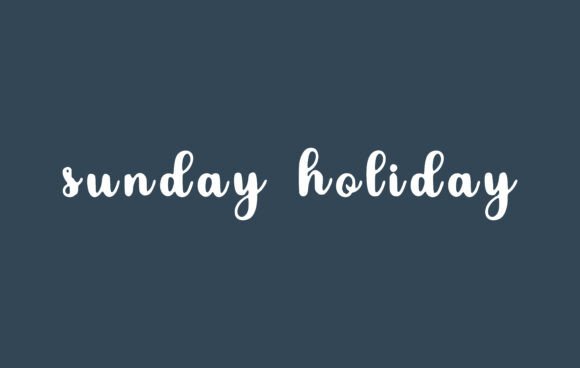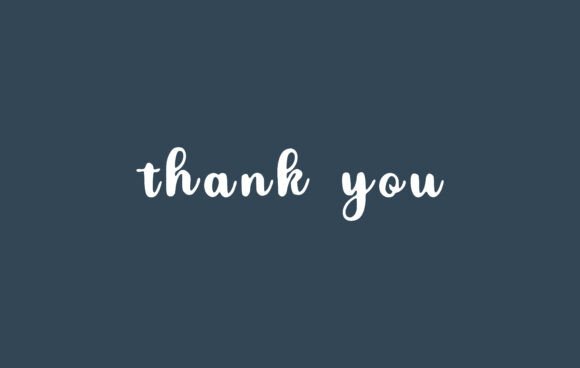
Crafty Cuties Font: The Perfect Addition to Your Design Arsenal
Are you tired of using the same old fonts in your designs? Do you want to add a touch of romance and whimsy to your creations? Look no further than Crafty Cuties font, an authentic handwritten font that is sure to become a true favorite in your design arsenal.
What is Crafty Cuties Font?
Crafty Cuties font is a beautifully designed handwritten font that exudes a romantic touch. With its unique and elegant style, this font is perfect for designers and crafters who want to add a personal touch to their creations. Whether you’re working on a magazine headline, social media post, branding project, wedding invitation, or card, Crafty Cuties font is the perfect choice.
Key Features of Crafty Cuties Font
- Authentic Handwritten Style: Crafty Cuties font is designed to look like it was written by hand, giving it a personal and unique touch.
- Romantic Touch: This font has a romantic and whimsical feel to it, making it perfect for designs that require a touch of elegance.
- Legible and Versatile: Crafty Cuties font is not only beautiful, but also highly legible, making it perfect for use as both title and body text.
Uses for Crafty Cuties Font
Crafty Cuties font is incredibly versatile and can be used in a wide range of design projects, including:
- Magazine Headlines: Add a touch of elegance to your magazine headlines with Crafty Cuties font.
- Social Media Posts: Make your social media posts stand out with this unique and eye-catching font.
- Branding Projects: Use Crafty Cuties font to create a consistent and recognizable brand identity.
- Wedding Invitations: Add a touch of romance to your wedding invitations with this beautiful font.
- Cards and Stationery: Crafty Cuties font is perfect for creating beautiful and personalized cards and stationery.
Why Choose Crafty Cuties Font?
With so many fonts available, why choose Crafty Cuties font? Here are just a few reasons:
- Unique Style: Crafty Cuties font has a unique and distinctive style that will set your designs apart from the crowd.
- High-Quality Design: Crafty Cuties font is designed to the highest standards, ensuring that it looks great in any design.
Tips for Using Crafty Cuties Font
Here are a few tips for getting the most out of Crafty Cuties font:
- Experiment with Different Sizes: Try using Crafty Cuties font in different sizes to create visual interest and hierarchy in your designs.
- Pair with Other Fonts: Experiment with pairing Crafty Cuties font with other fonts to create a unique and eye-catching combination.
- Use in Combination with Images: Use Crafty Cuties font in combination with images to create a beautiful and visually appealing design.